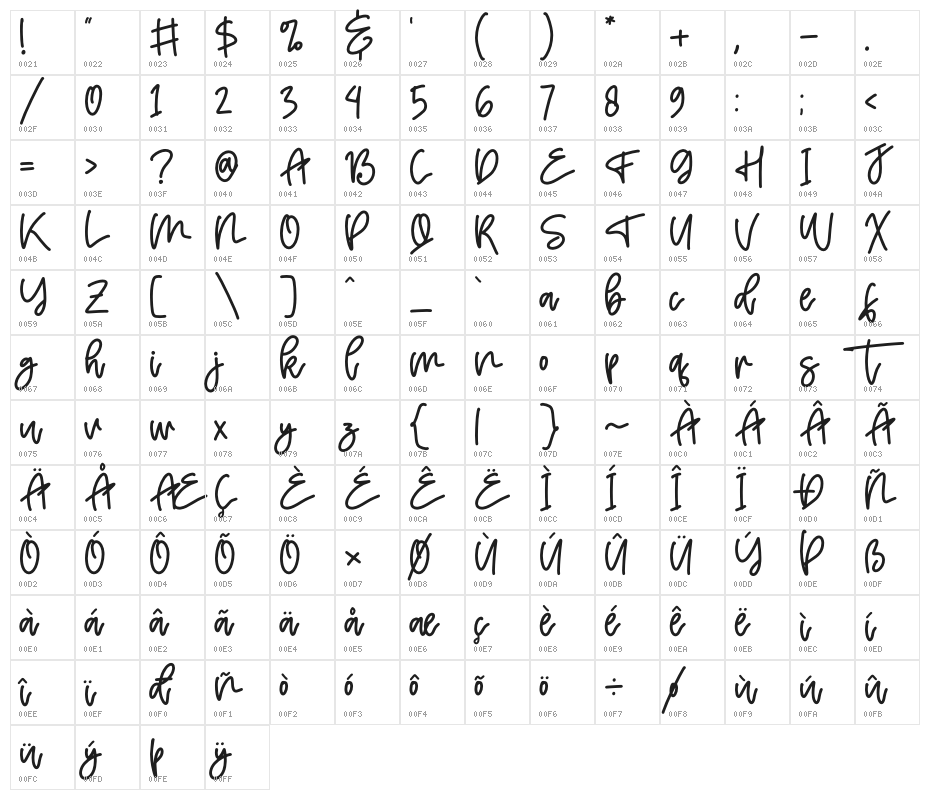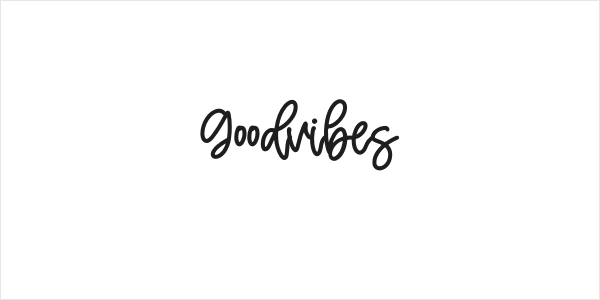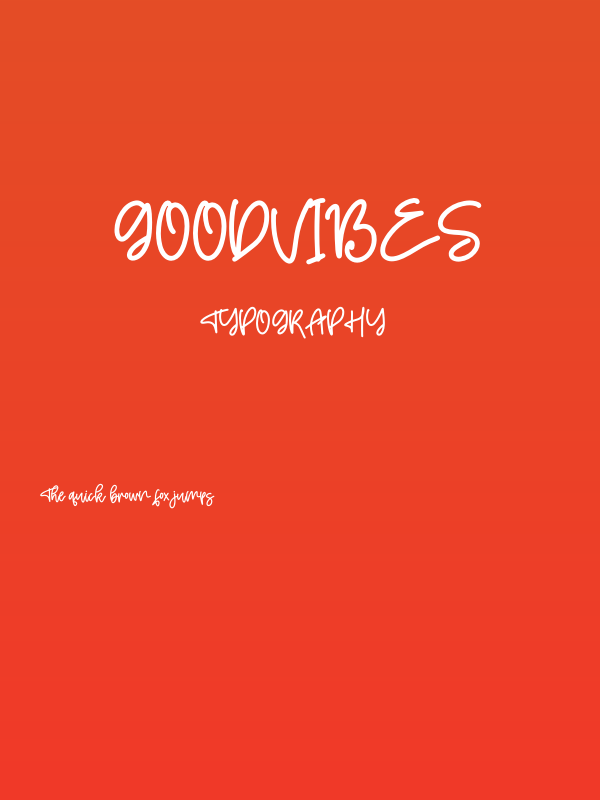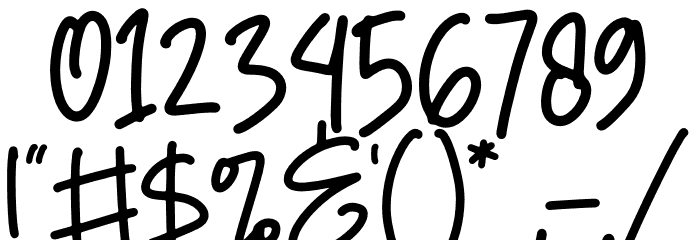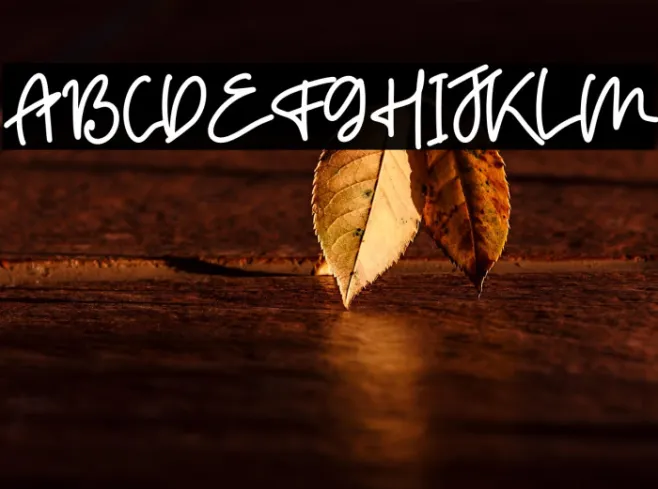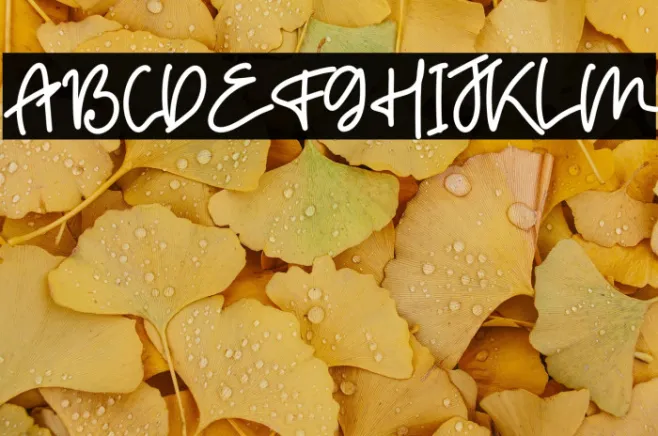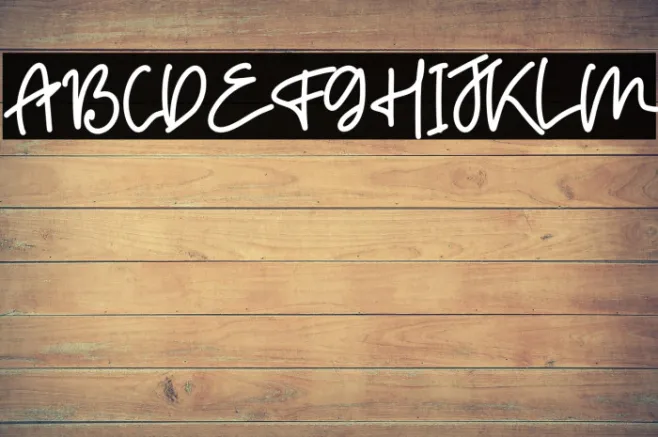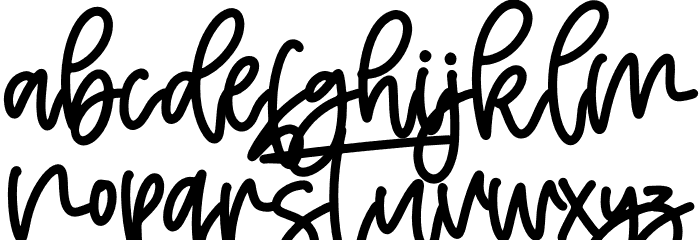
Goodvibes Font
Goodvibes Description
This font exudes a lively and energetic vibe, characterized by its handwritten style that mimics the fluidity and spontaneity of casual script. The letters are connected in a smooth, flowing manner, giving it a personal and informal touch. The strokes are bold and confident, with a consistent thickness that maintains legibility while adding a playful charm. The uppercase and lowercase letters are well-balanced, and the numbers and special characters are crafted to match the overall aesthetic. This font is perfect for projects that require a touch of personality and warmth.
| Proposed Projects | Ideal for greeting cards, social media graphics, personal branding, and informal invitations. |